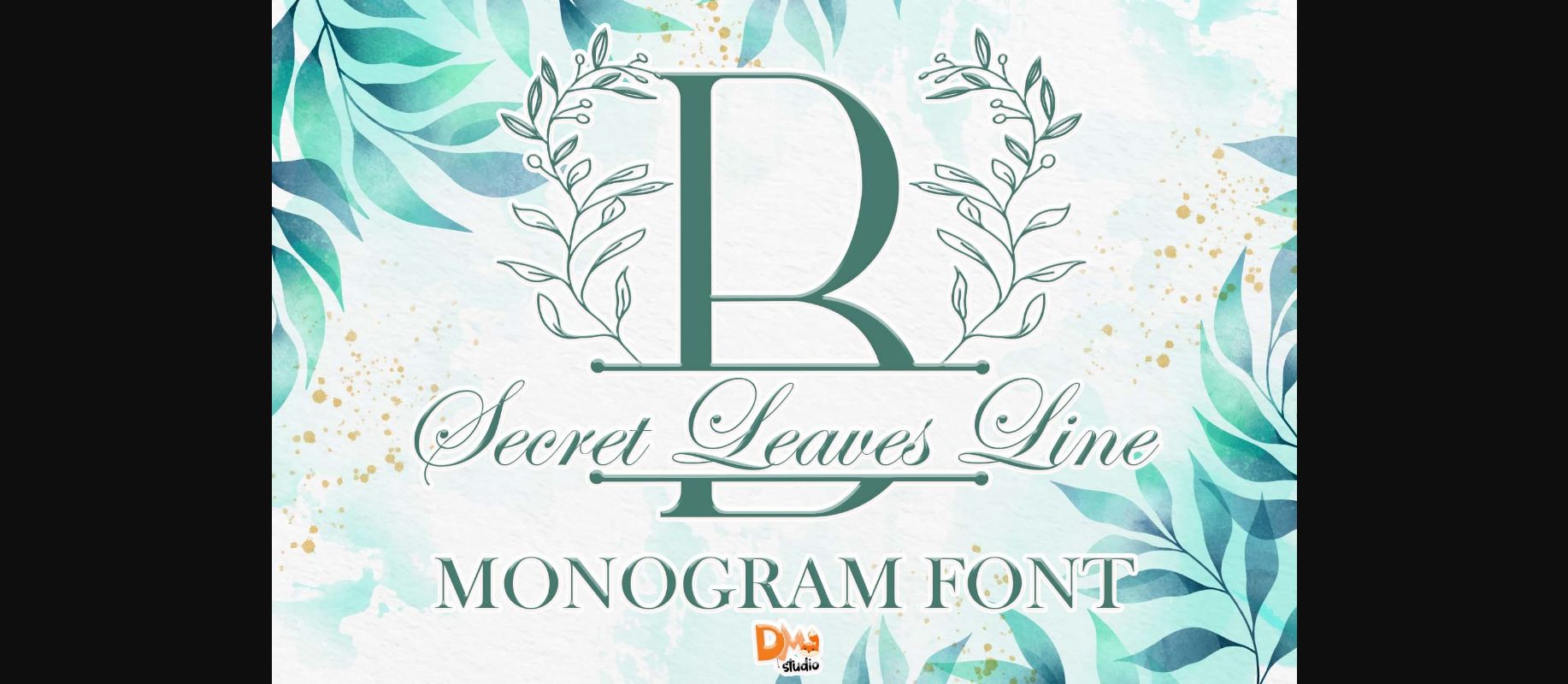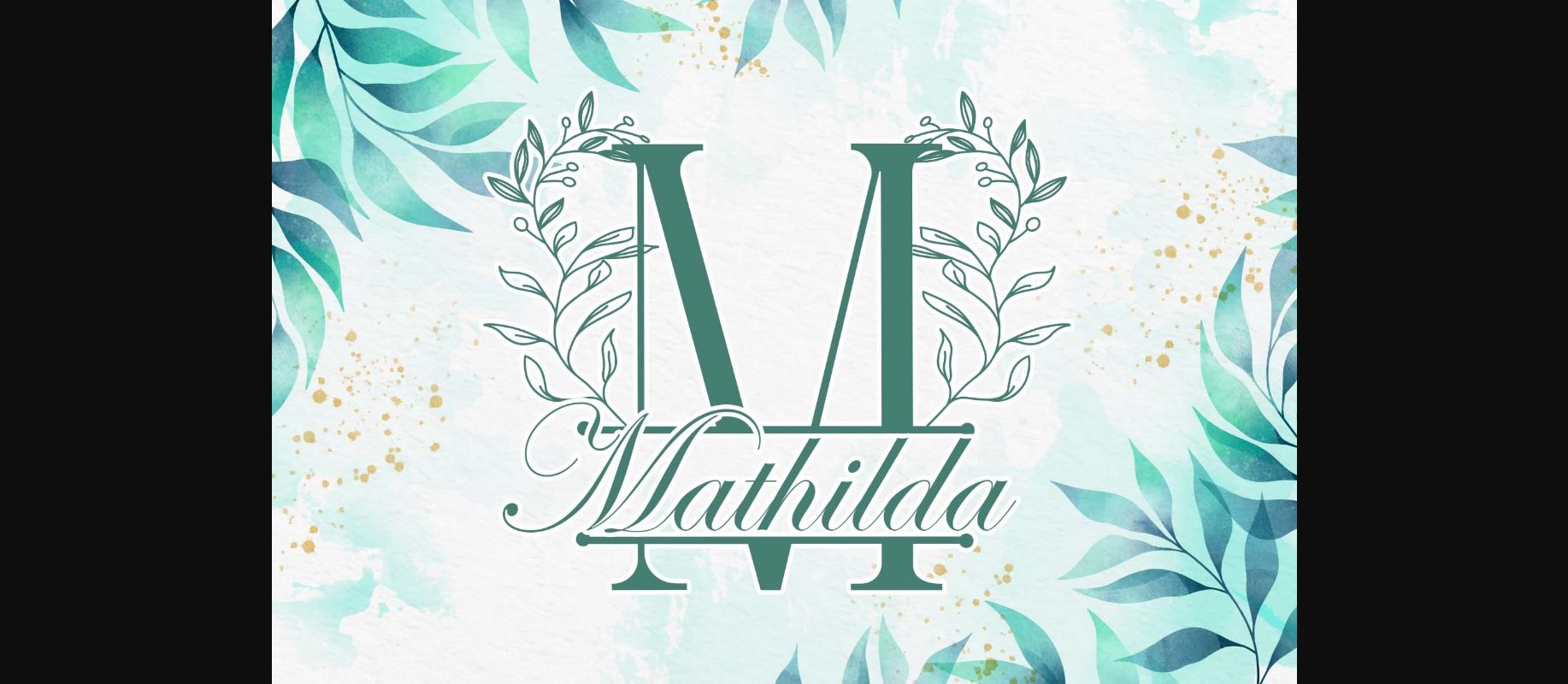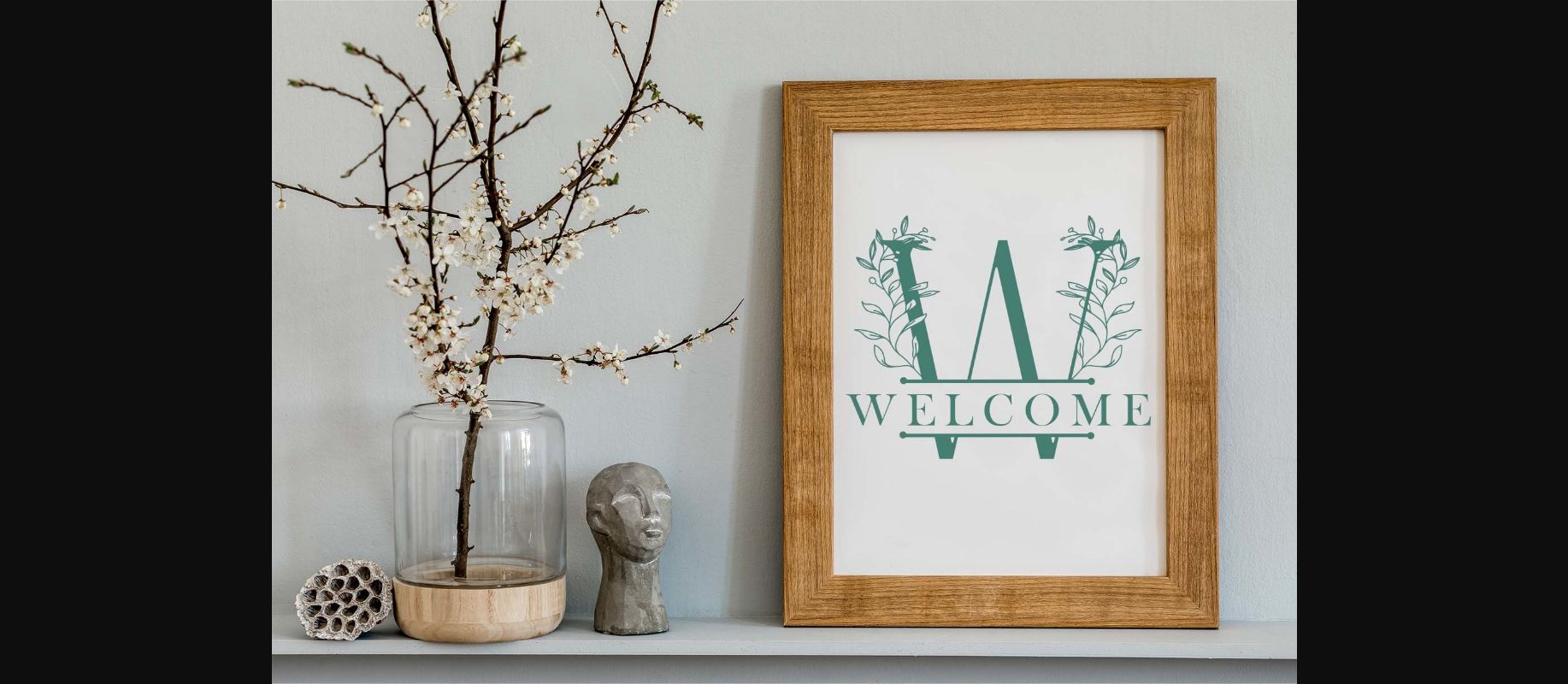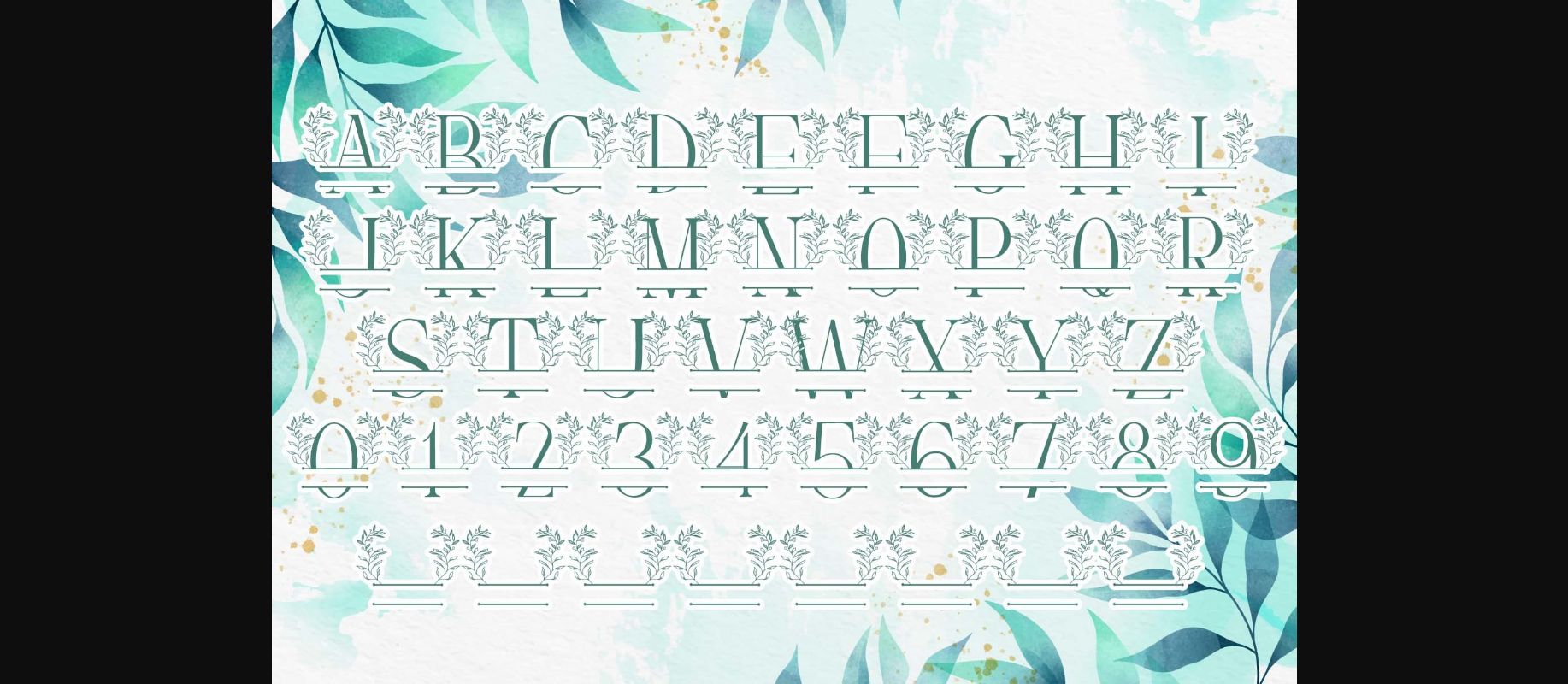
About Secret Leaves Line Monogram Font
Secret Leaves Line Monogram is a highly detailed and beautiful decorative font. Add this lovely-looking font to each of your love letters, wedding invitations, or favorite design ideas, and you will be astounded by the outcome.